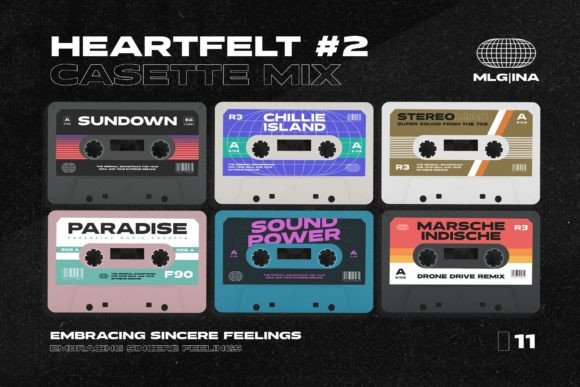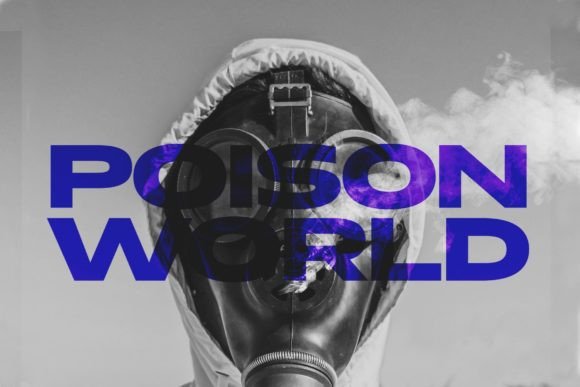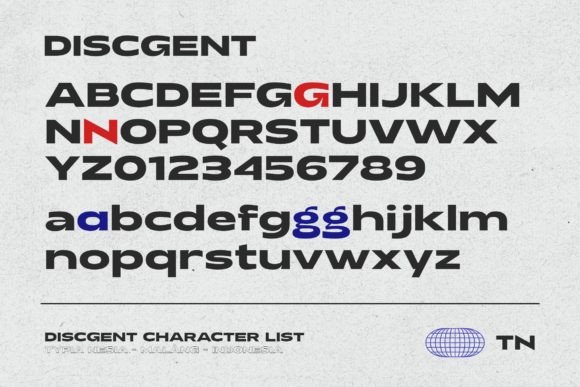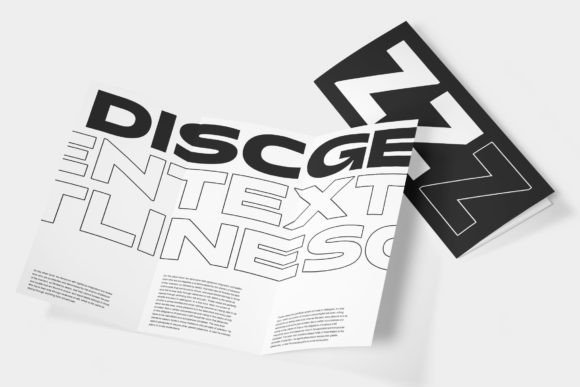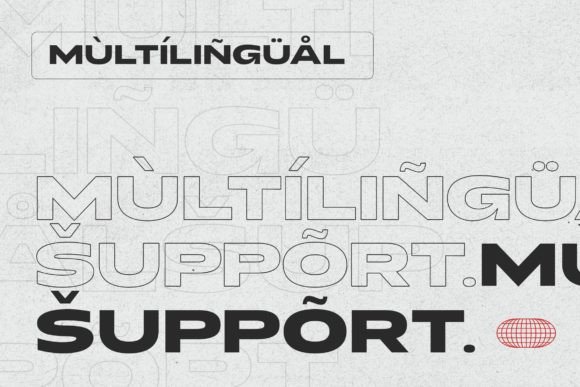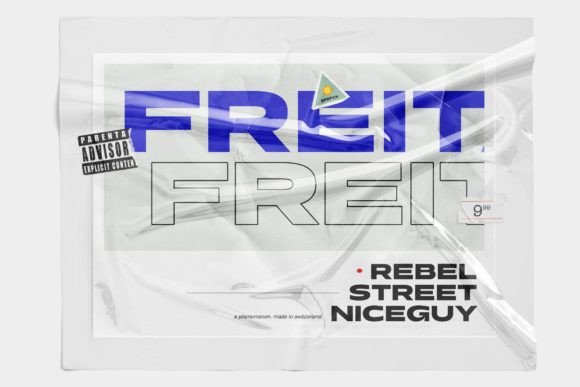
The Winning Touch: Elevating Your Designs with Discgent Font
Remember that moment when you finally nailed the perfect design for your sports team’s logo? The rush of excitement and pride you felt as you saw your idea come to life is what drives creatives to push the boundaries of innovation. For designers, the right font can be the difference between a good design and a great one. That’s where the Discgent Font comes in – a powerful, attention-grabbing typeface designed to add a vibrant touch to your sport-inspired designs.
With its bold feel and robust design, the Discgent Font is a valuable asset for any designer looking to elevate their projects. Whether you’re working on a sports jersey, movie poster, or book cover, this font is sure to draw attention and make your design stand out. Plus, its PUA encoding makes it easy to access all the amazing glyphs and ligatures, giving you endless possibilities for creative expression.
Discgent Font Key Features
- Font Family: Discgent is a sans-serif font family designed for digital use.
- Resolution: Optimized for use at high resolutions (up to 300 DPI) and screen sizes.
- Unique Characteristics: Features a geometric, modern design with clean lines and minimal ornamentation.
- Size: Available in multiple font sizes, from 12-point to 72-point.
Discgent Font Review
Overall, I think the Discgent Font is an interesting and unique addition to any design project. ✨ The geometric shapes and modern aesthetic give it a sleek, futuristic feel that could be perfect for tech or sci-fi inspired designs. ✨ The font also has a wide range of weights and styles, making it easy to customize and adapt to different use cases.
- Geometric shapes and modern aesthetic give it a sleek, futuristic feel
- Wide range of weights and styles for customization
- Perfect for tech or sci-fi inspired designs
- Limited legibility in smaller font sizes
- May not be suitable for designs that require a more traditional or classic feel
- Some characters may be difficult to read due to their geometric shape
In conclusion, while the Discgent Font has some limitations, I think its unique aesthetic and customization options make it a great choice for the right project. If you’re looking for a font that will add a touch of futurism to your design, the Discgent Font is definitely worth considering.
Tips for Getting the Most Out of Discgent Font
For the best results, use Discgent Font in conjunction with bold or italic styles to add emphasis to your text. Experiment with different font sizes and colors to create visual hierarchy and interest.
Discgent Font is ideal for use in headings, titles, and body text where a modern and clean aesthetic is desired. It pairs well with other sans-serif fonts and can be used in a variety of design contexts, including logos, brochures, and website content.